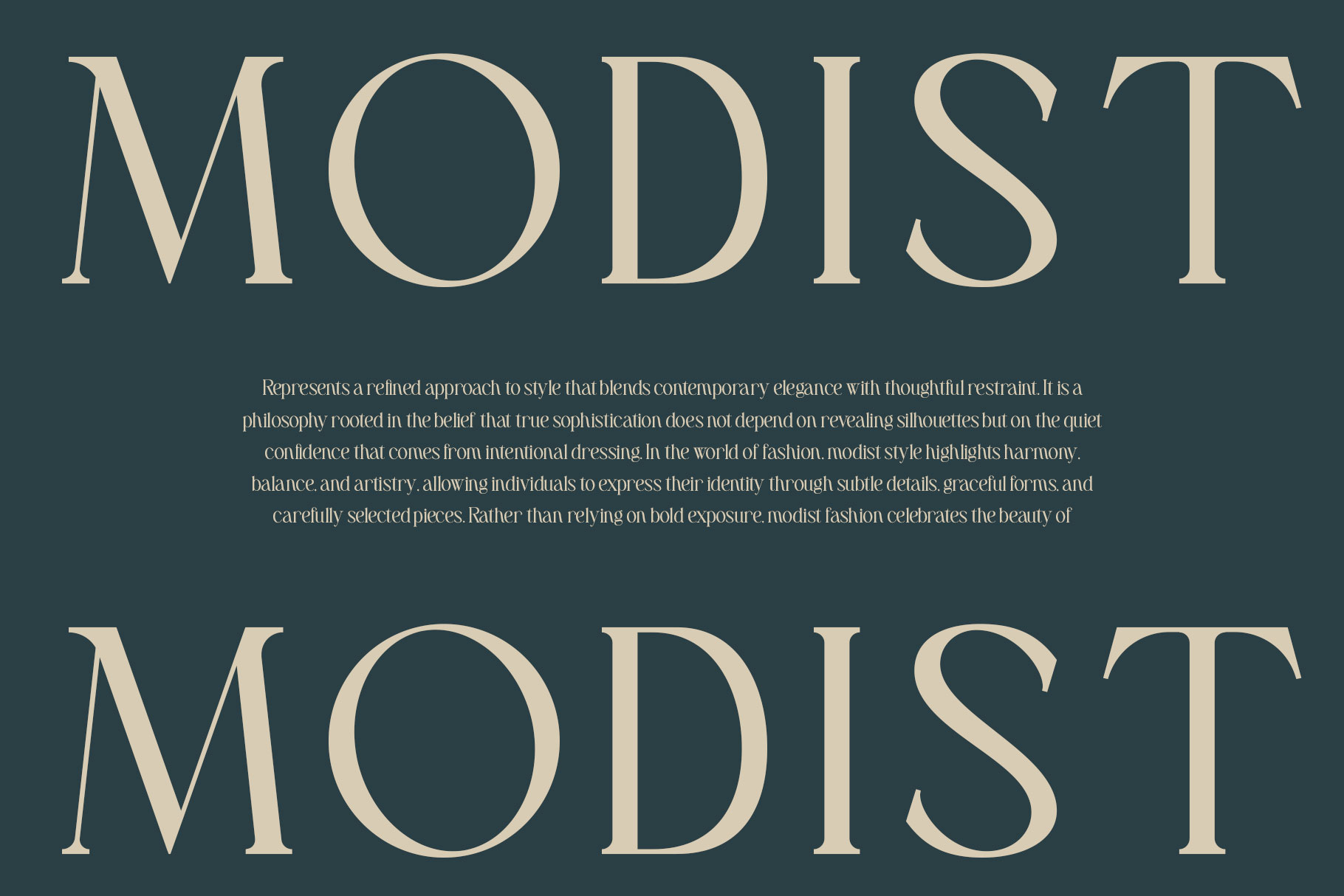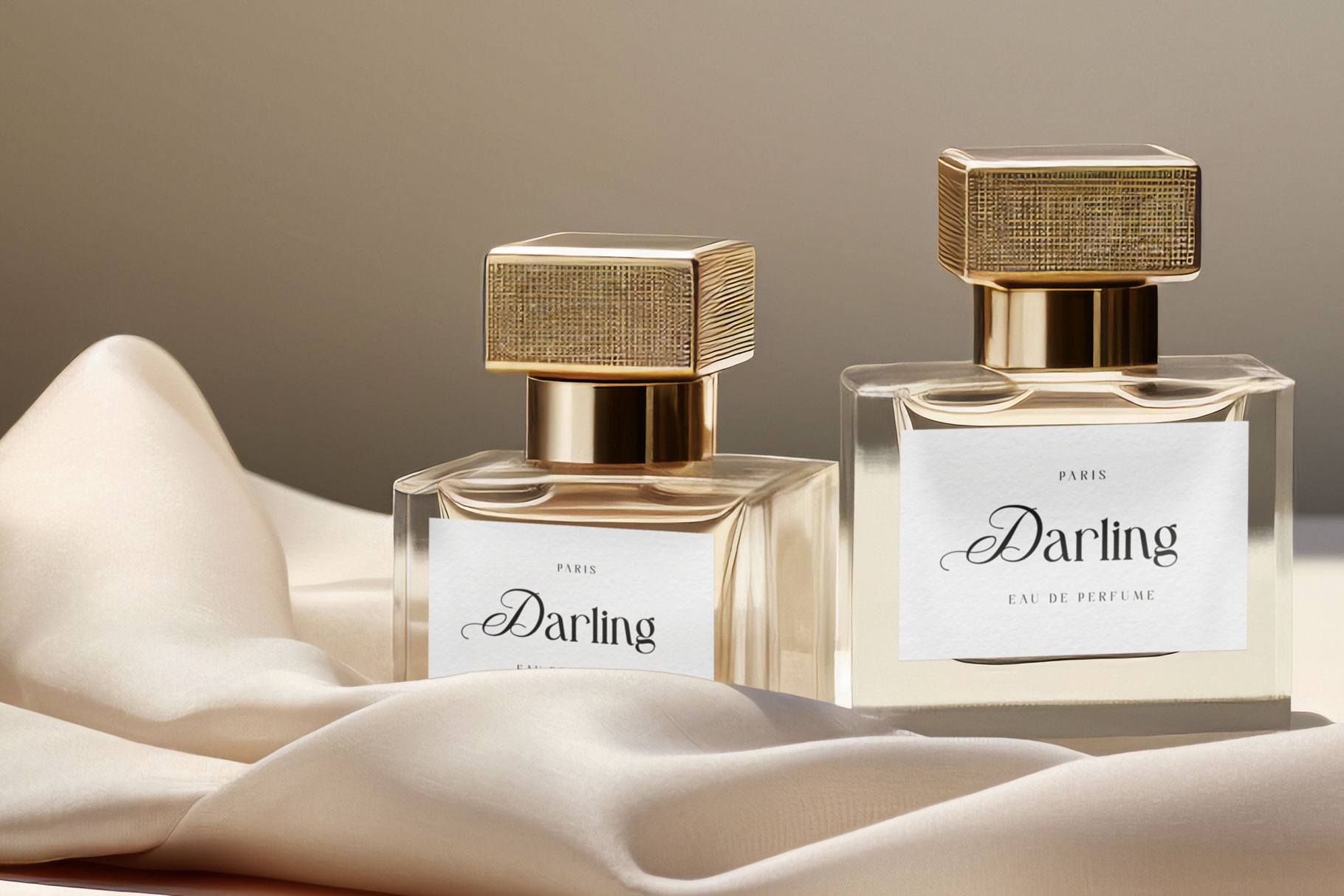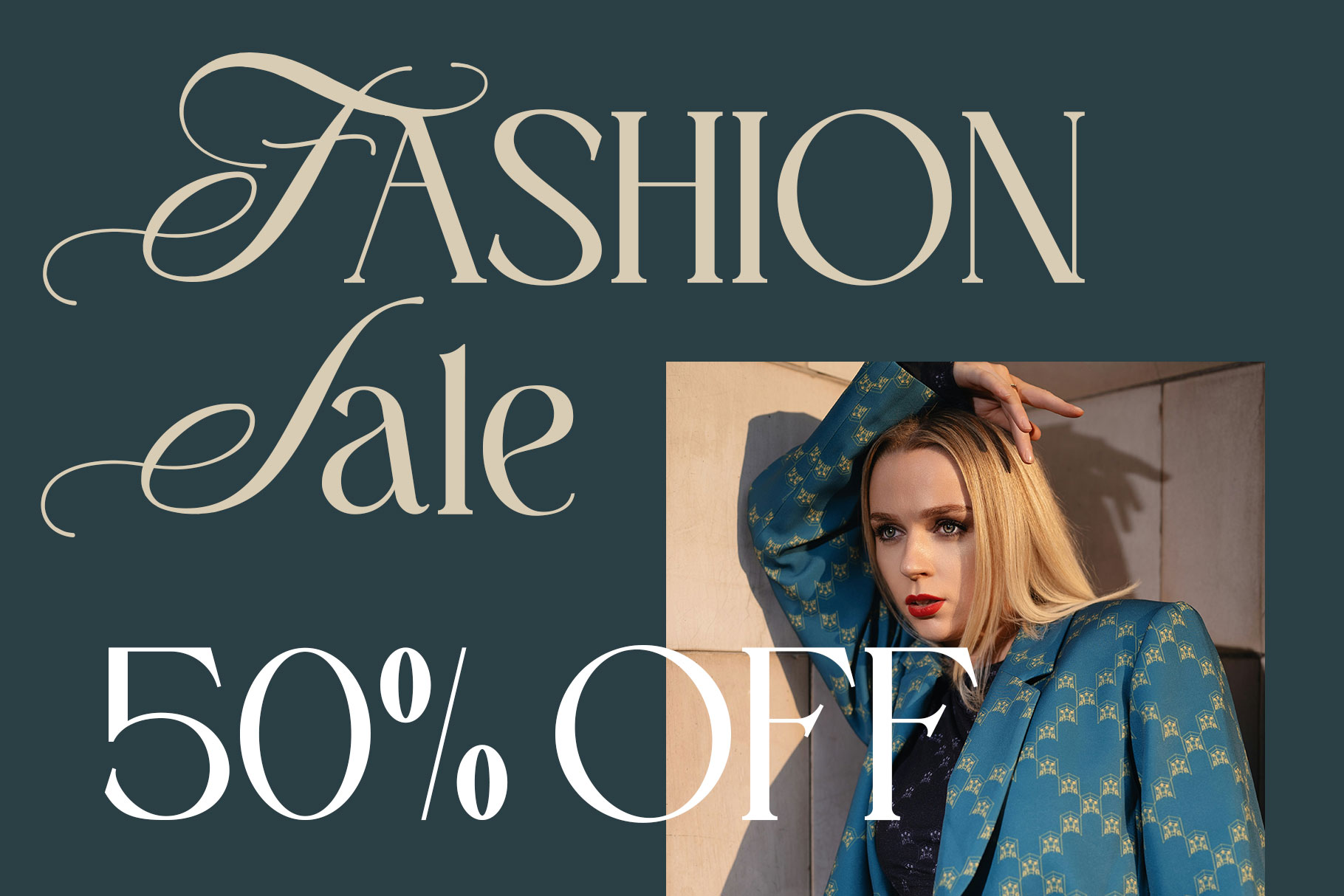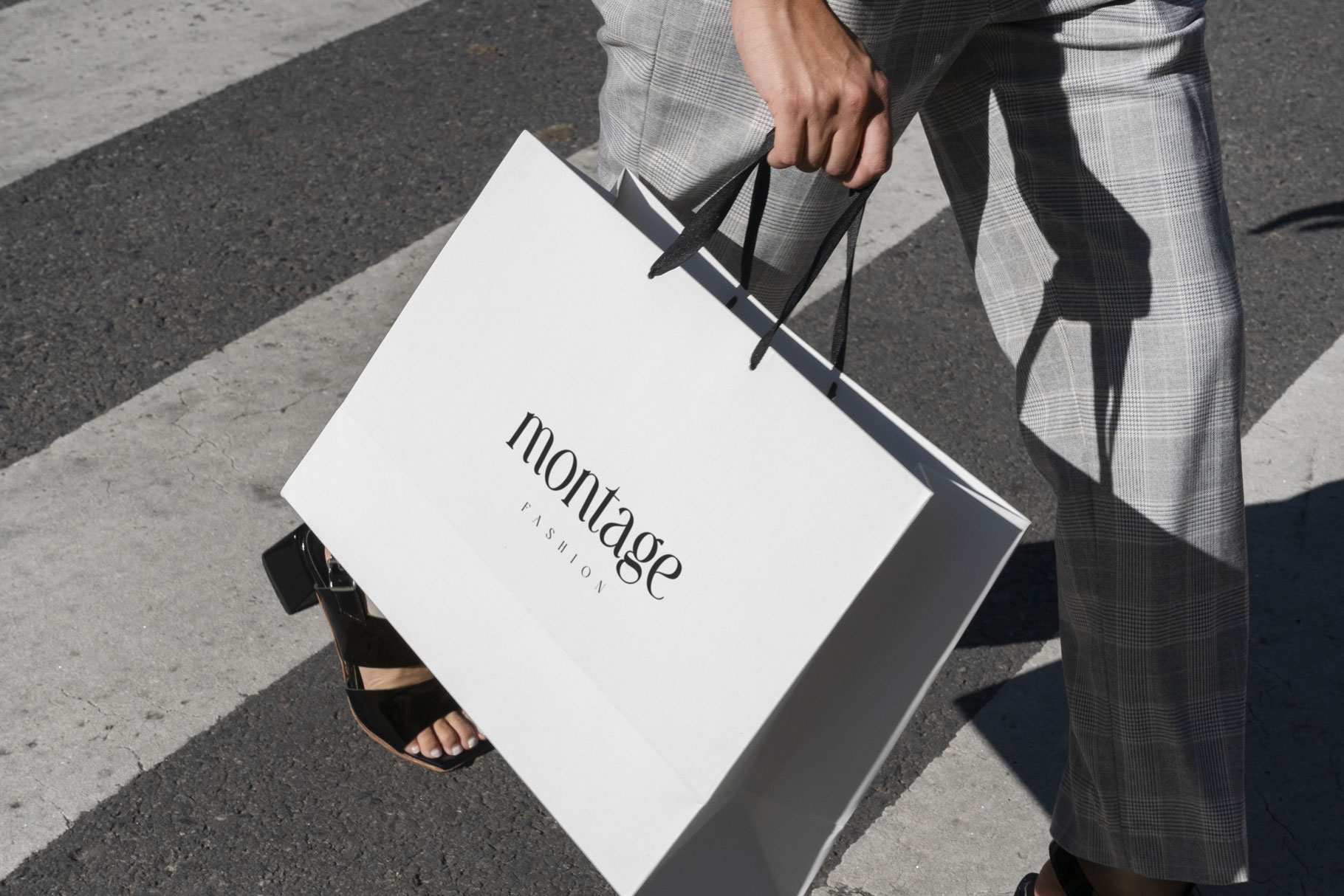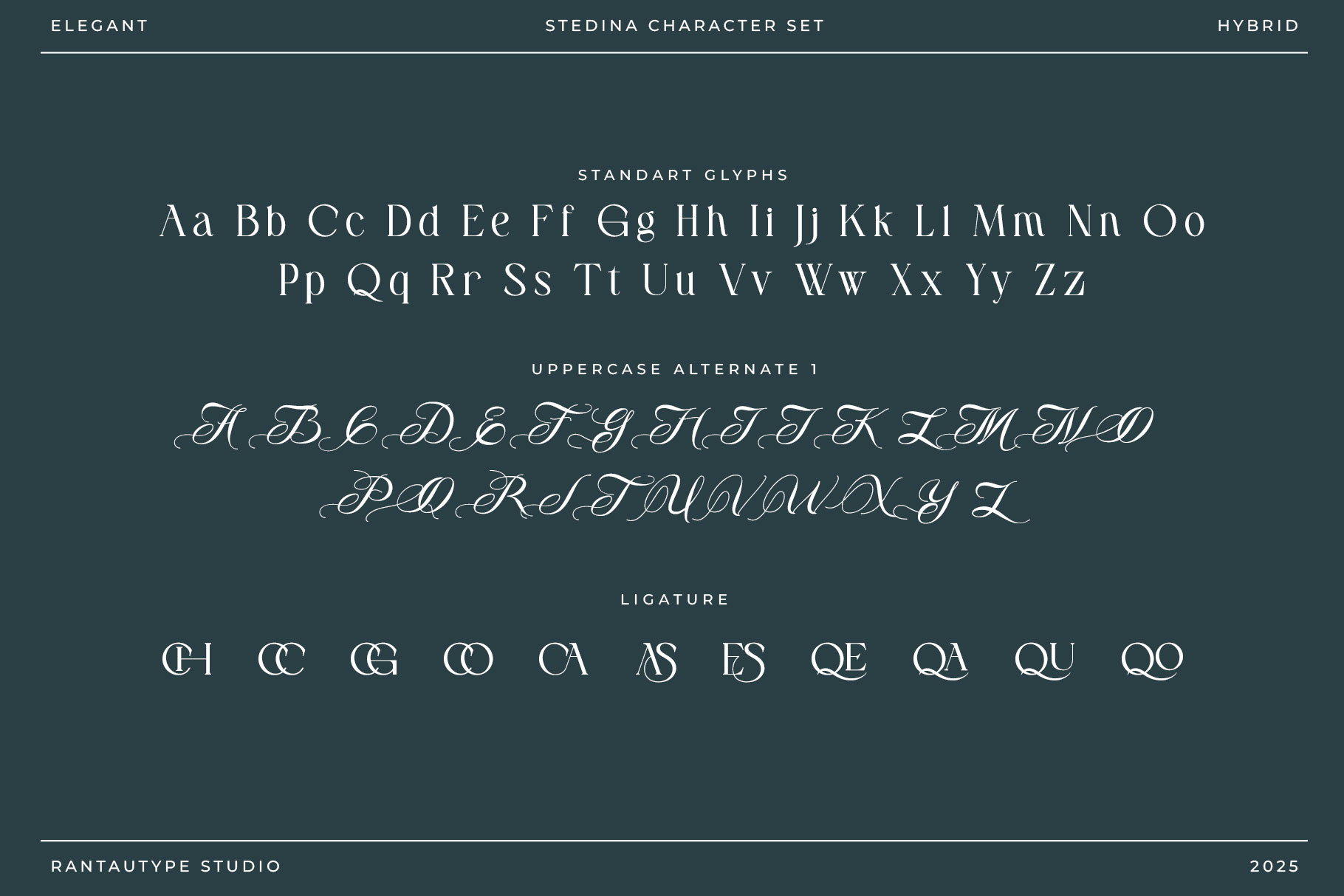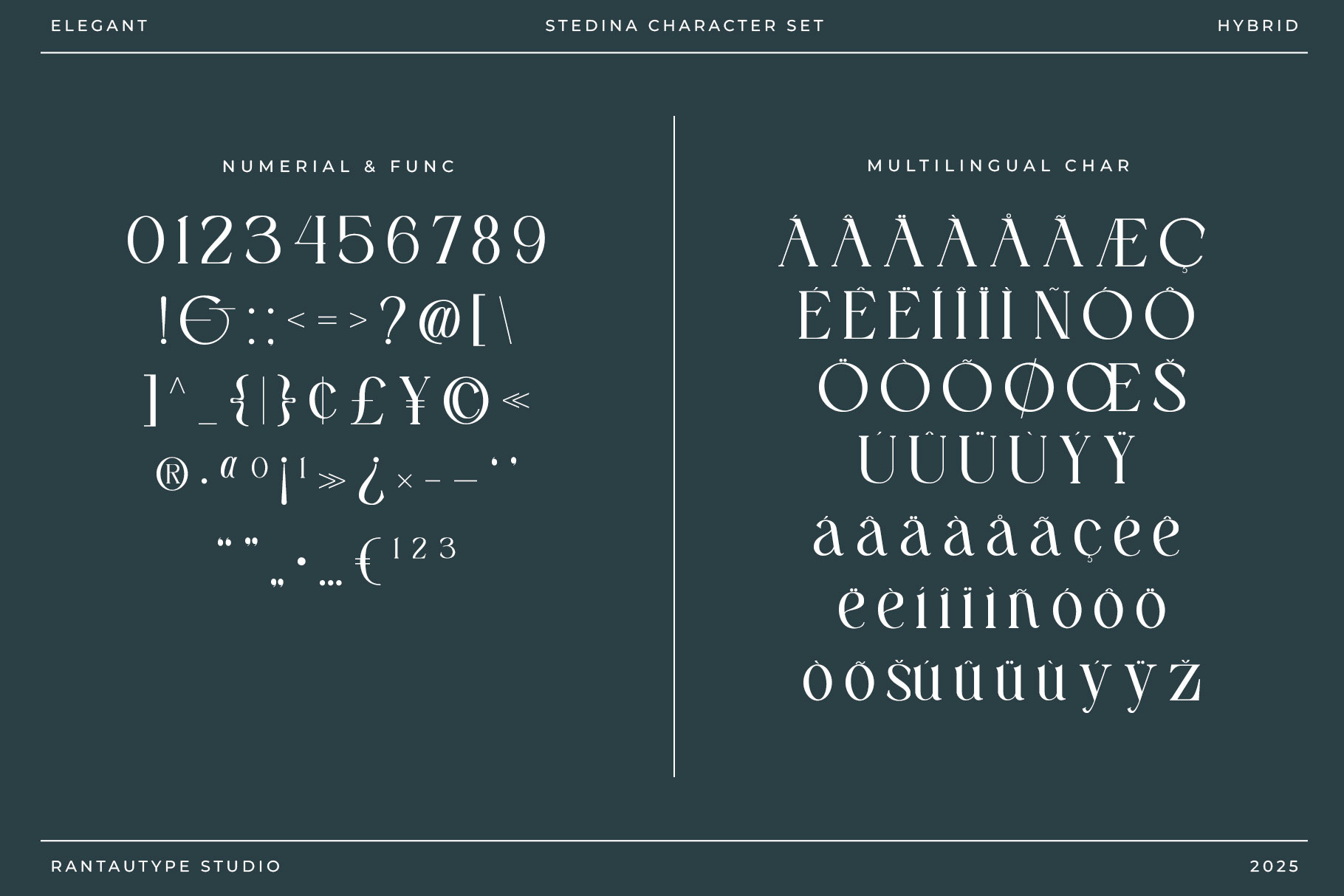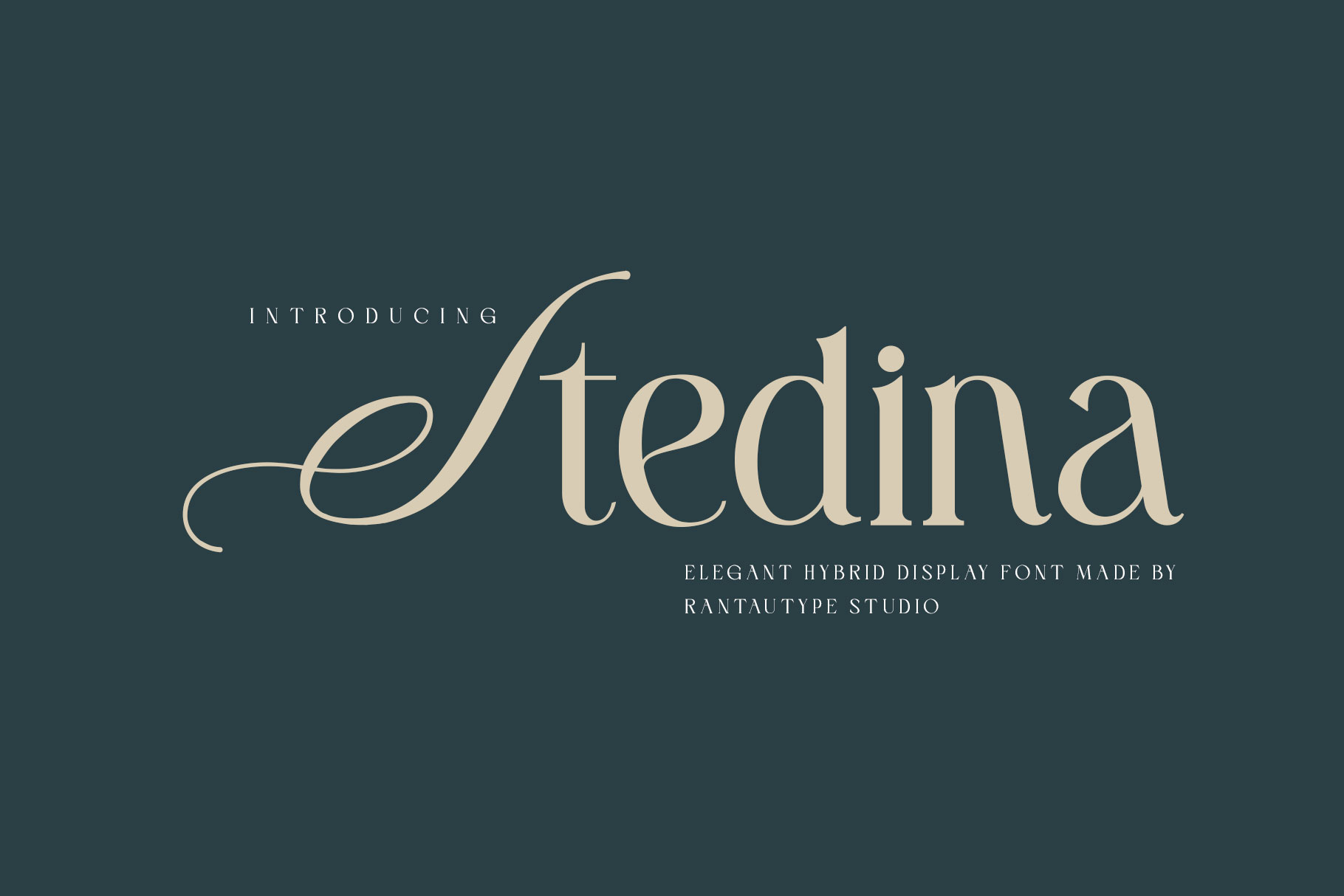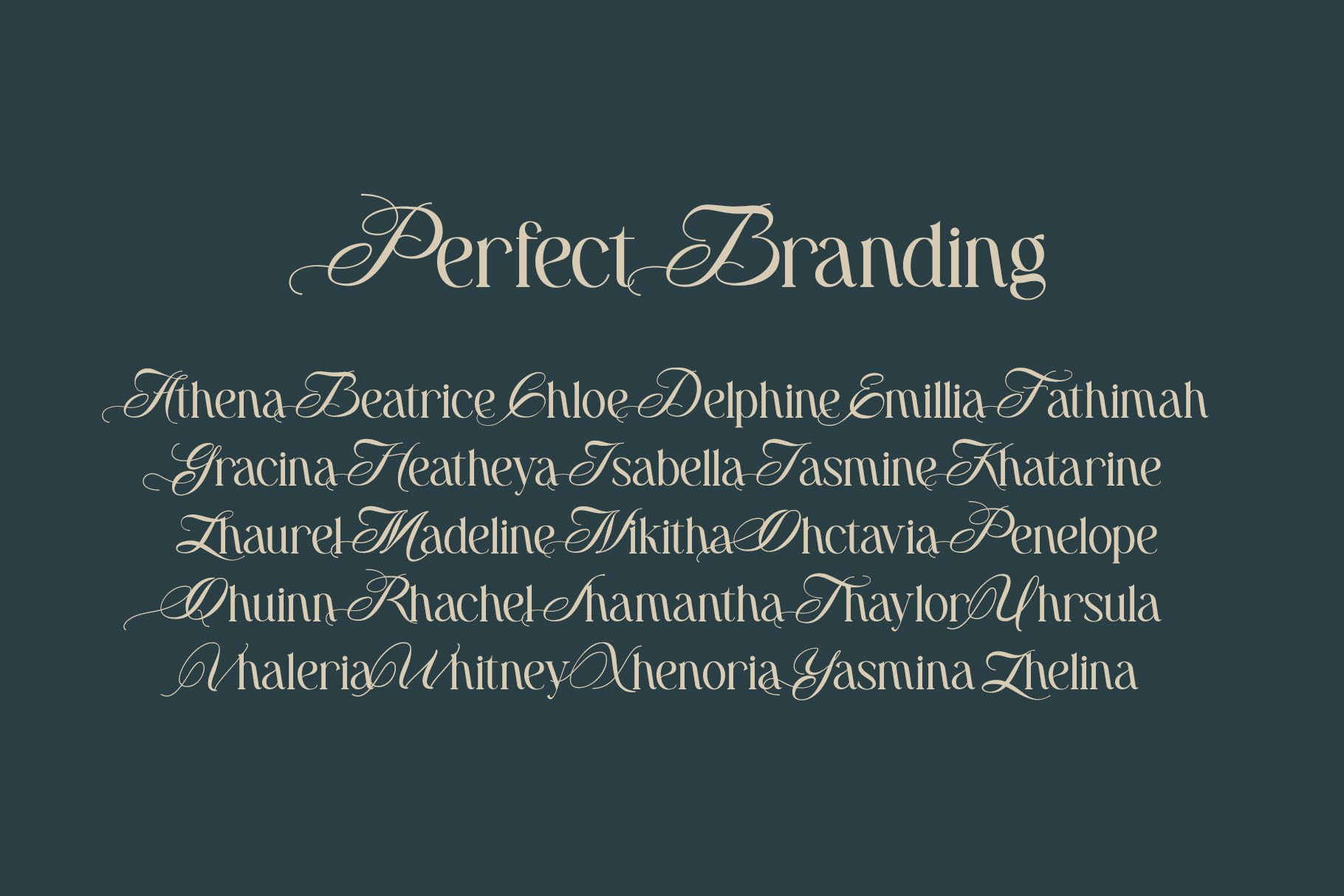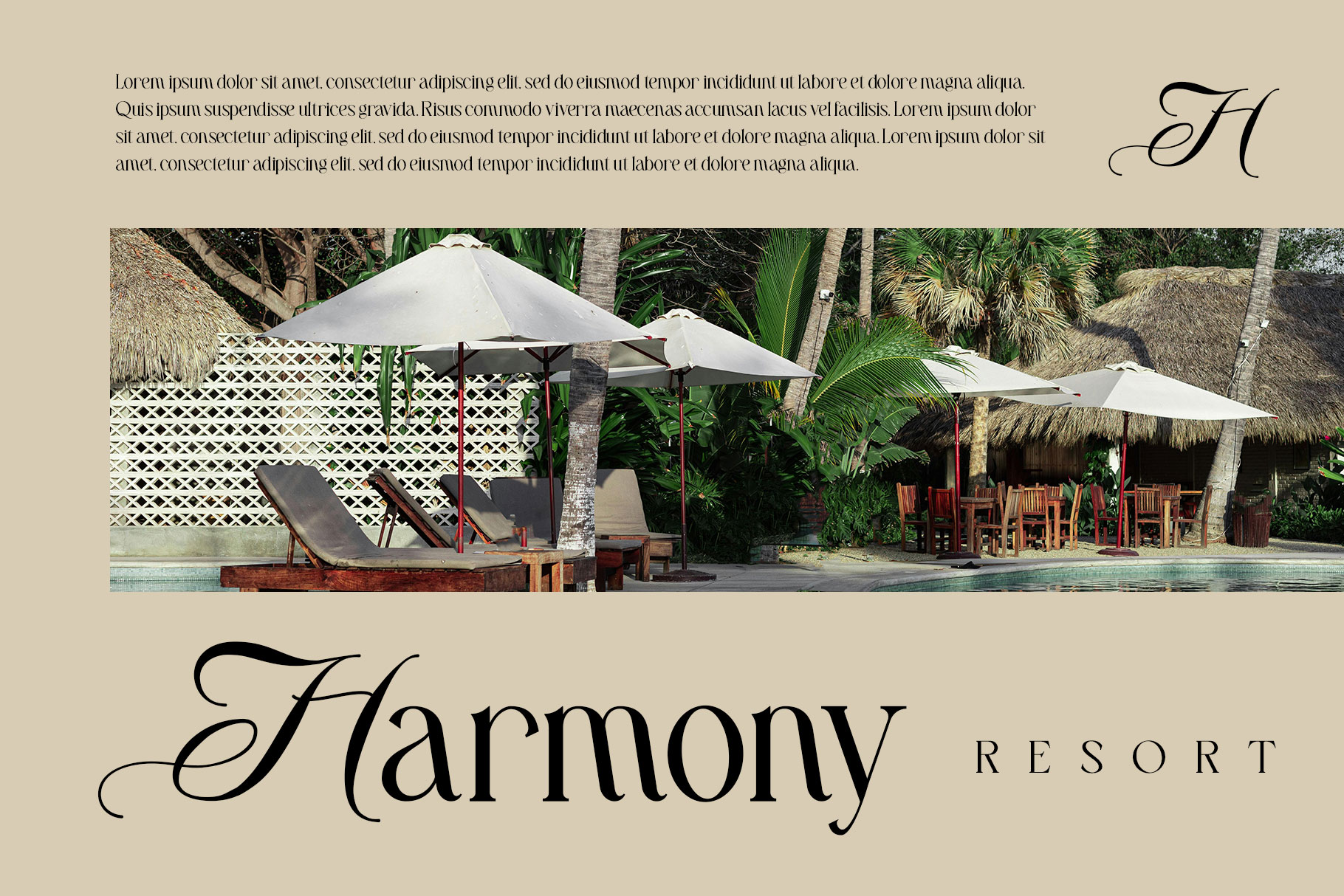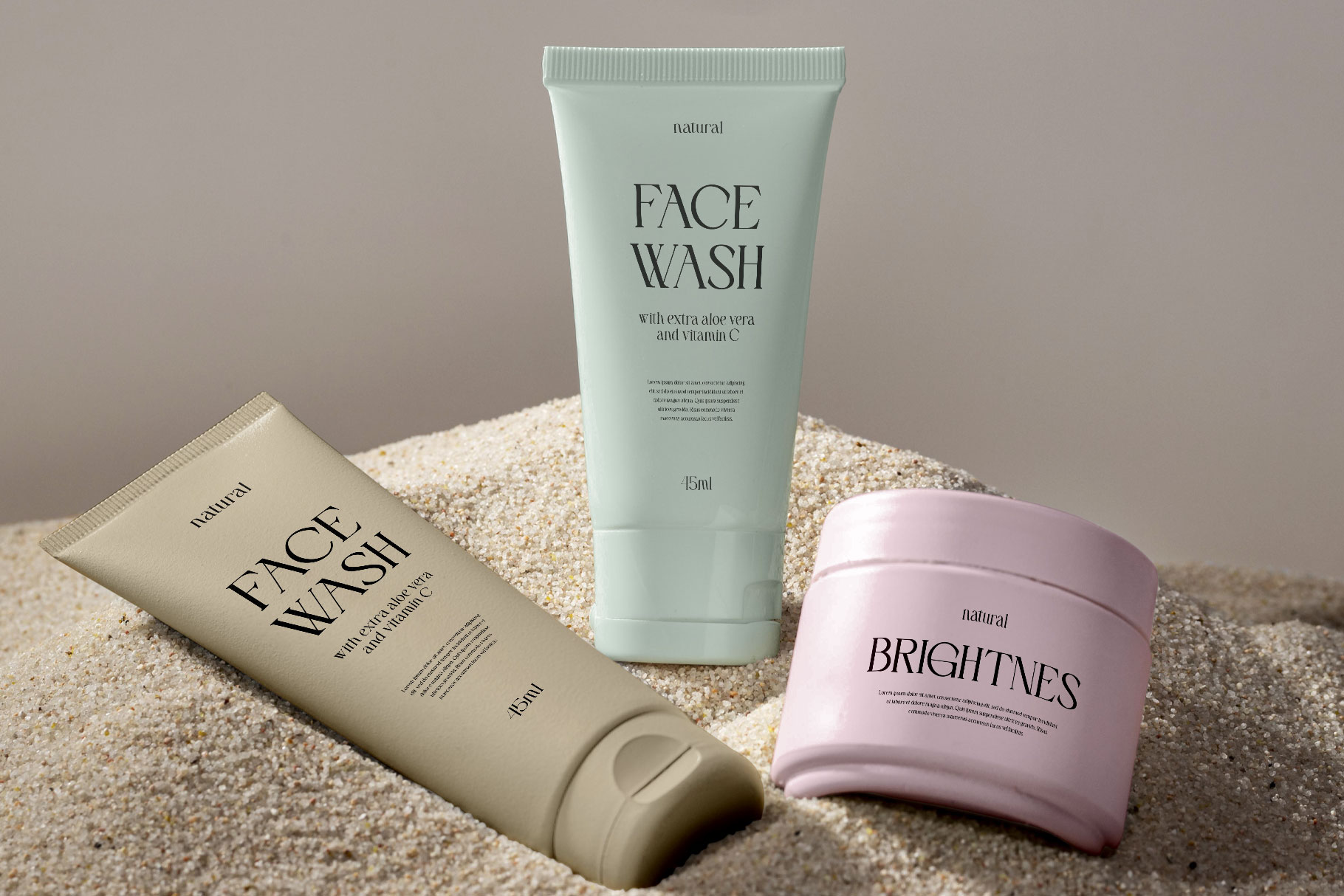
Stedina Elegant Hybrid Font
Stedina is elegant hybrid serif font made by rantautype studio. Alternate come with script look elegant you can mix and match to make a beautiful project. Stedina is a perfectly choice for any creative endeavor, creating, modern, lifestyle design such as logotype, title, cover, branding, invitations, wedding designs, display and magazine, social media posts, advertisements, printed quotes, product packaging, corporate brand, product designs, labels, photography, watermarks, special events and any other project with elegant touch.